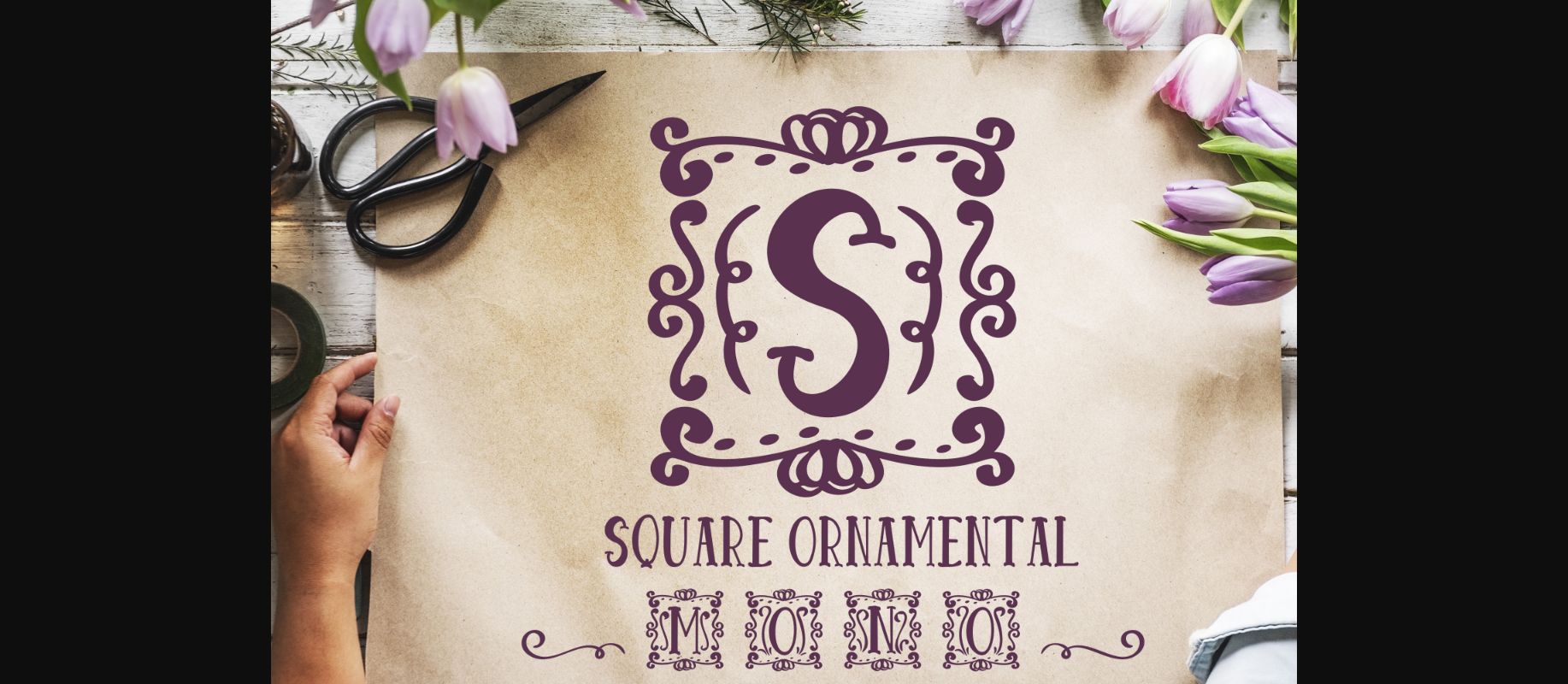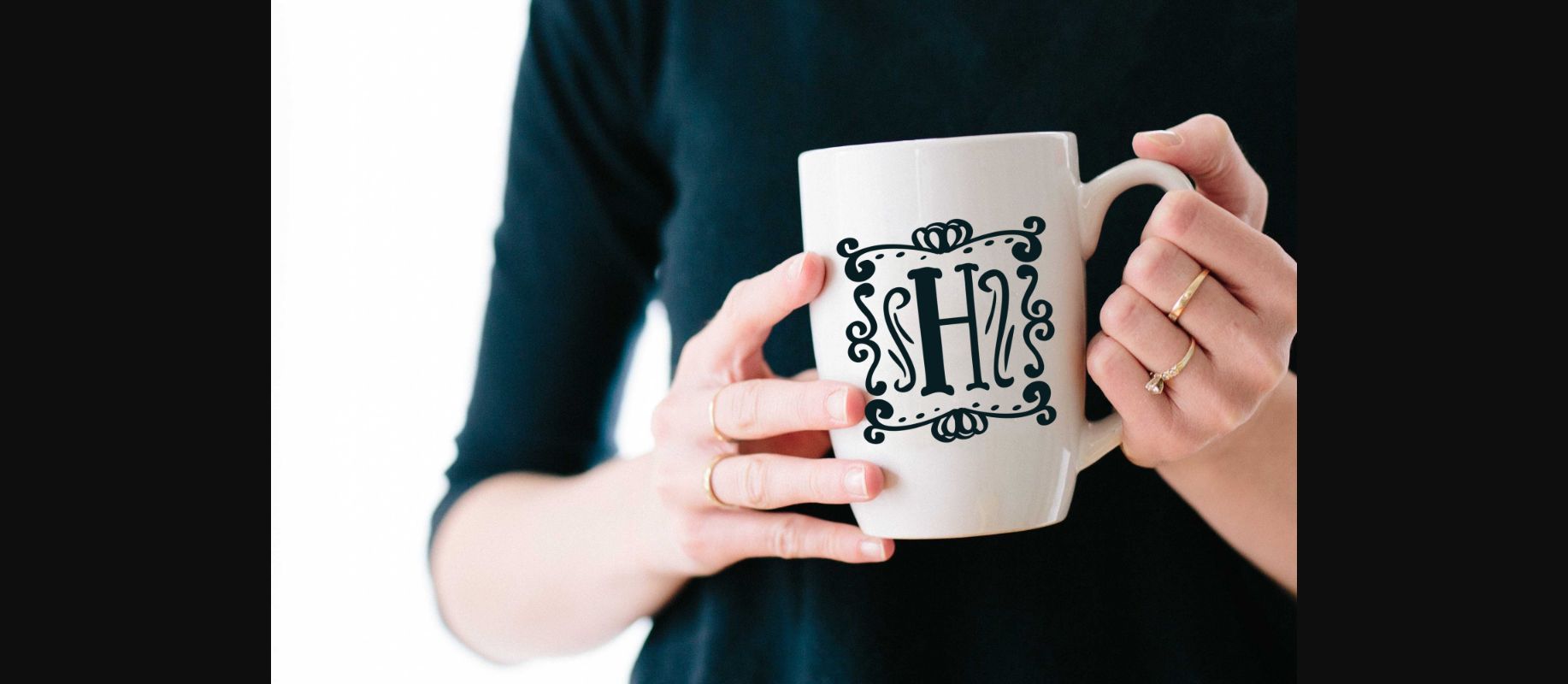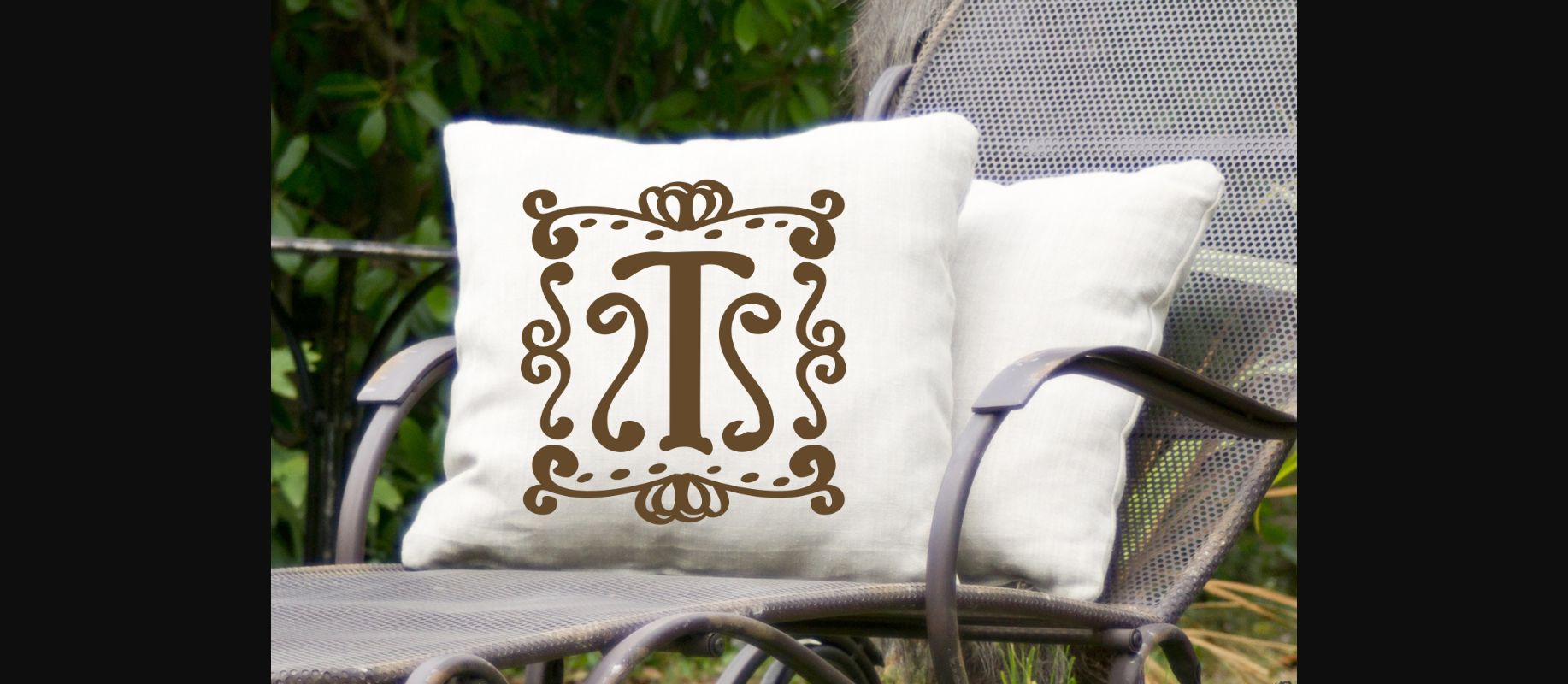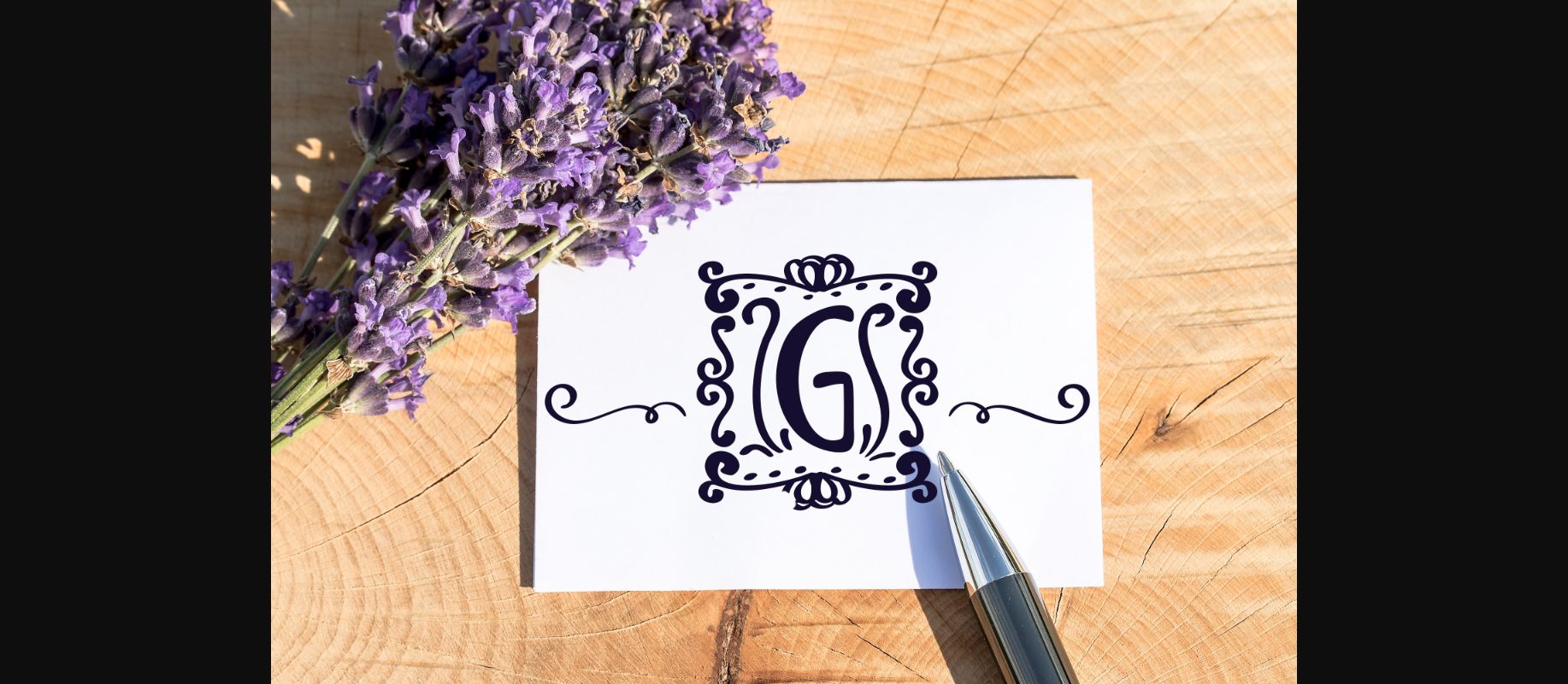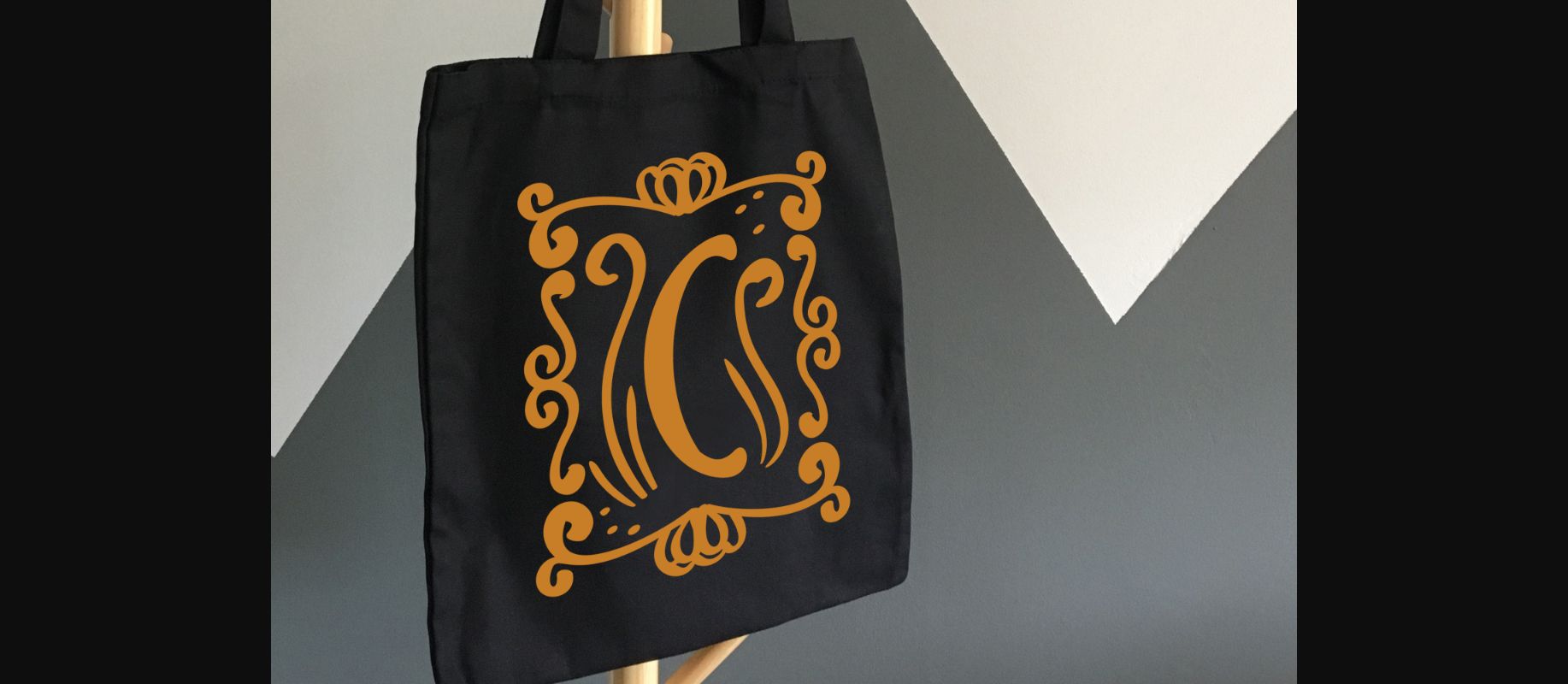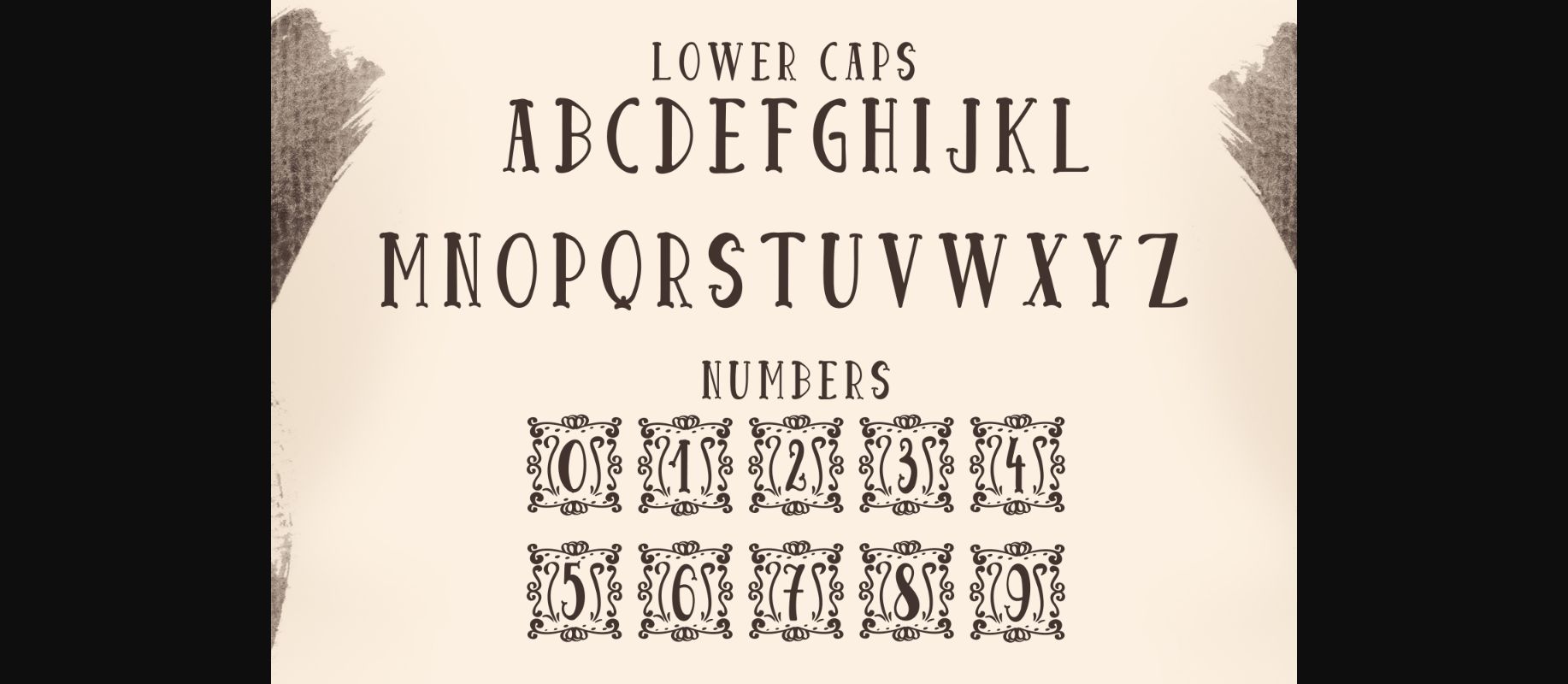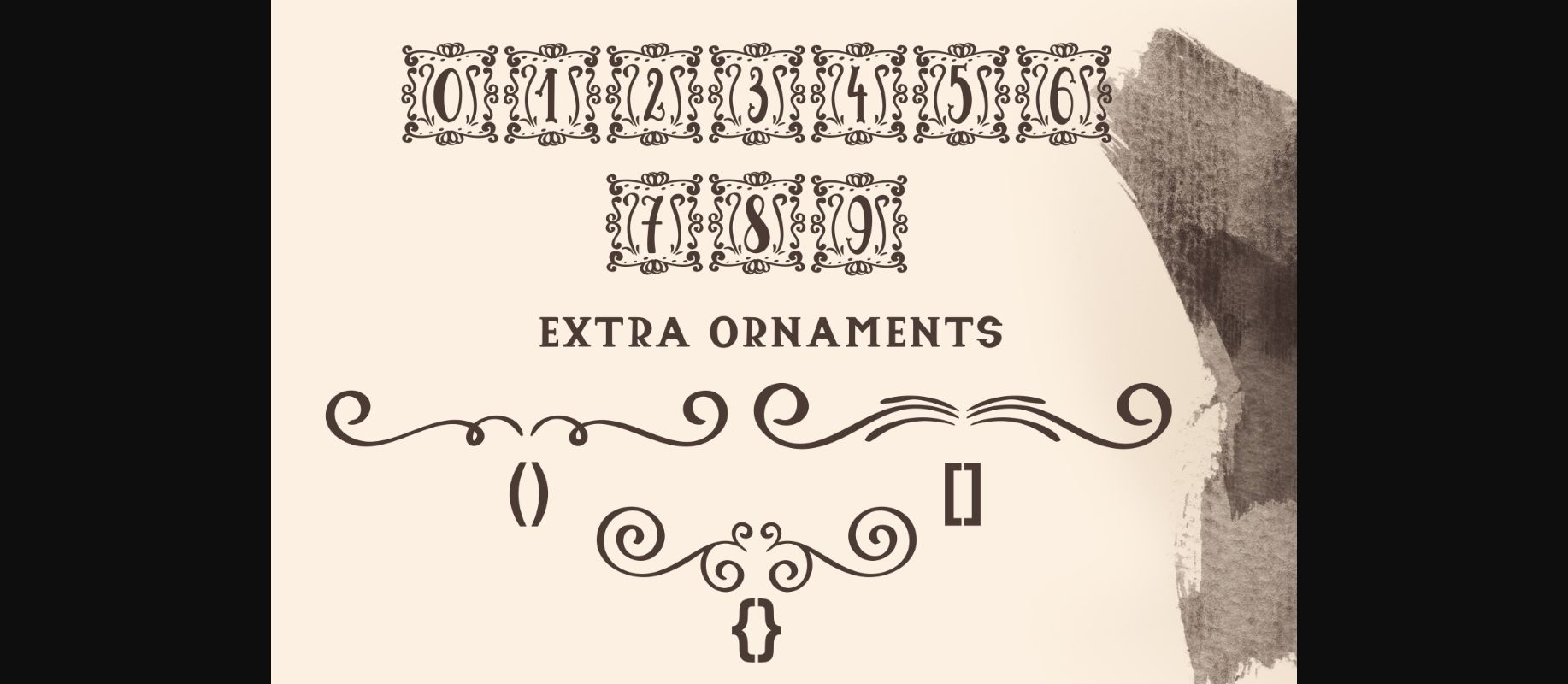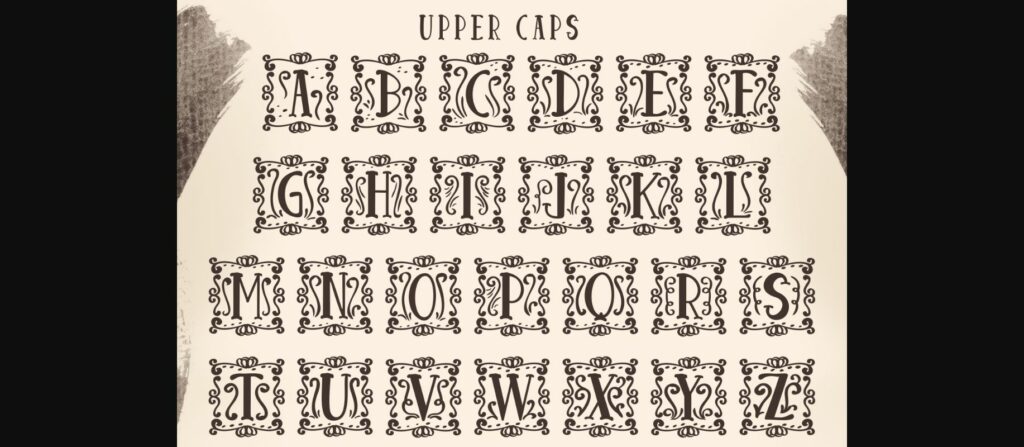
Square Ornamental Monogram Font
The Square Ornamental Monogram lets you design unique monograms in seconds.
It can be used as a logo font, wedding invitations or crafting.